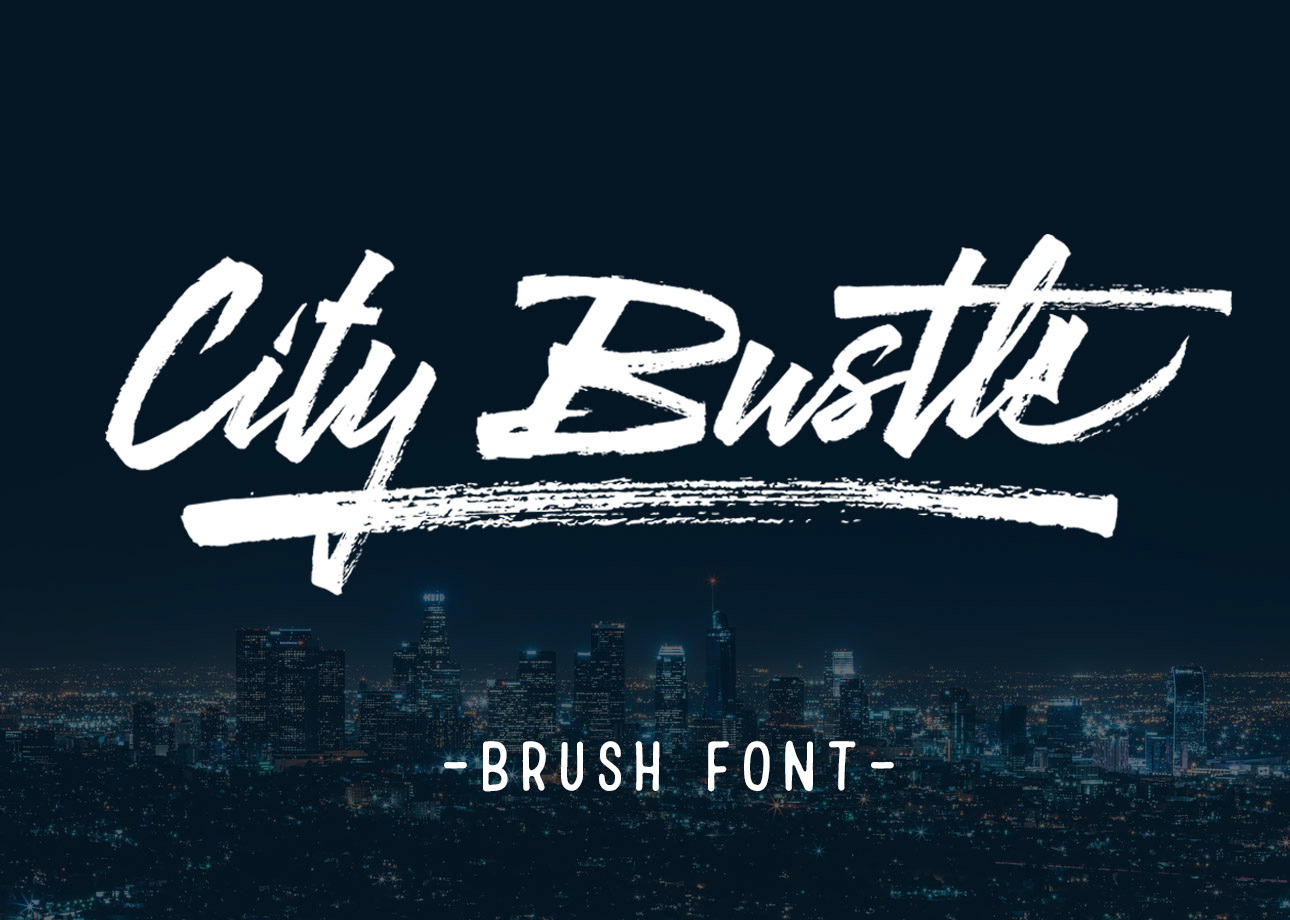
City Bustle brush font
Introducing new font collection City Bustle From Qiwbrother Studio. City Bustle is handmade brush font. City Bustle has a strong brush texture and natural. City Bustle also equipped with 3 alternate characters font, so you can combain regular characters with alternate characters in any design you need. This font is suitable for logos, branding, posters, clothing, etc.
City bustle with 2 characters alternate up and low can be combined with regular letters, which makes the character a different letter in each design.
There are 26 City Bustle swash characters (.ttf) that you can use as an additional ornament to embellish the design. Install these files separately.